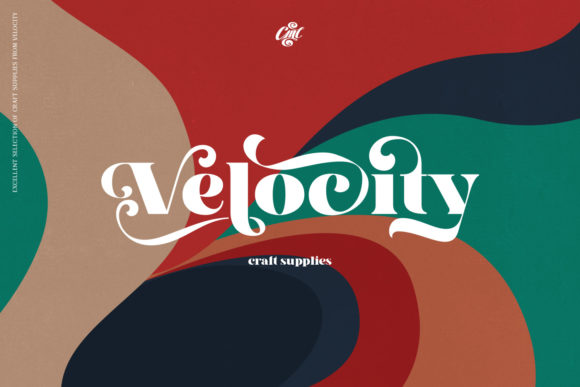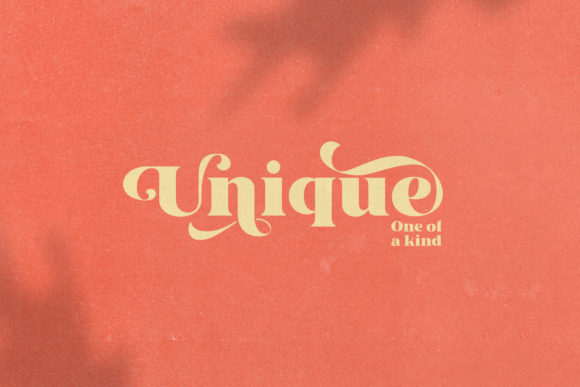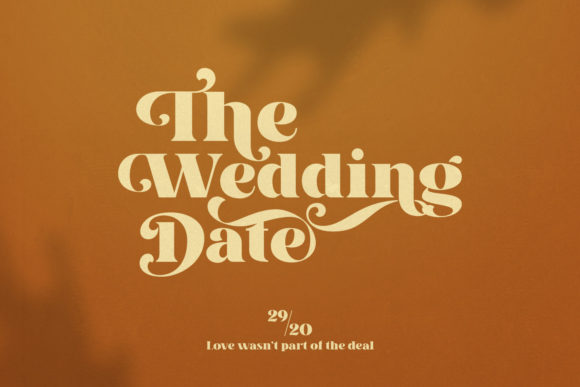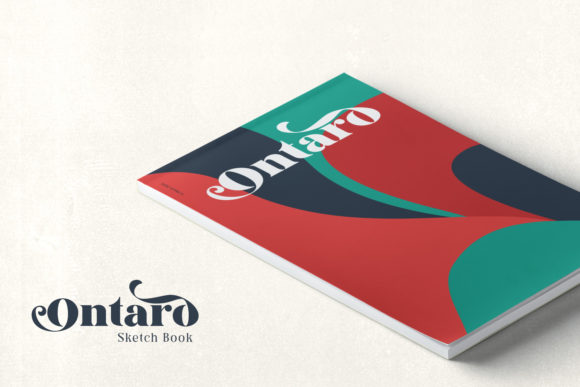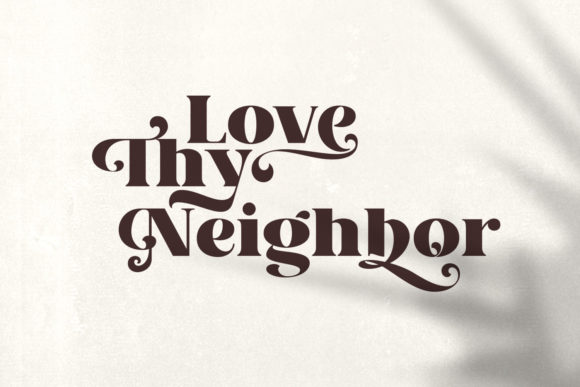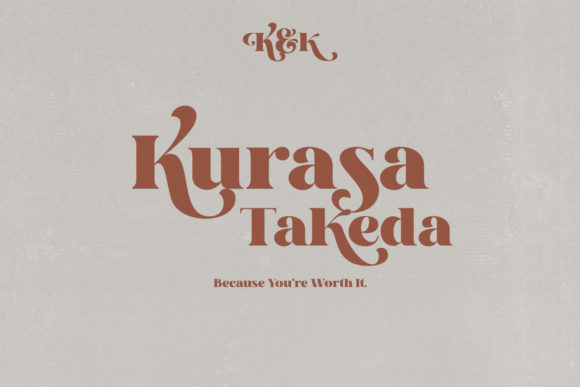
Introduction to Kaoly Font Font
Fonts play a crucial role in design, and the Kaoly Font font is a typeface that brings both character and versatility to any project. Whether you’re working on a branding project, a website, or a print design, the Kaoly Font font offers a unique style that can elevate your work.
Kaoly is an elegant and stylish display font.
Fall in love with its incredibly versatile style and use it to create gorgeous wedding invitations, beautiful stationary art, eye-catching social media posts, and much more .
Key Features of Kaoly Font Font
Why Choose Kaoly Font Font?
The Kaoly Font font is more than just a typeface – it’s a design tool that helps you communicate your message with style and clarity. Its unique character set and versatile design make it suitable for a wide range of applications, from elegant invitations to bold headlines.
With its carefully crafted letterforms and balanced proportions, the Kaoly Font font ensures readability and visual appeal across all mediums.
What makes Kaoly Font font special?
The Kaoly Font font stands out with its unique design, exceptional readability, and versatility across various design applications.